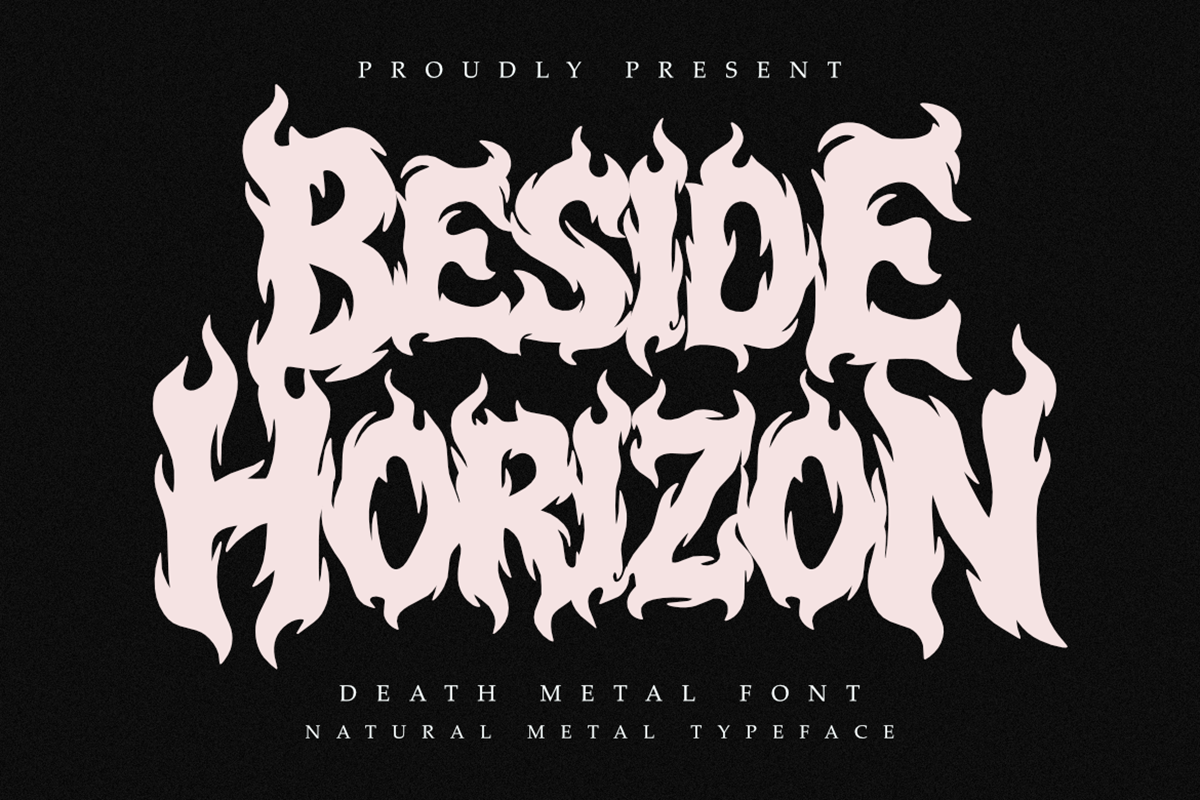
Beside Horizon – Death Metal Font is a brutal professional font designed for sophisticated branding and high-end extreme design projects.
Its fluid and aggressive letterforms provide a contemporary yet timeless feel, striking a perfect balance between organic fire-like structures and modern metal aesthetics. This font embodies the essence of modern minimalism while maintaining a sense of raw power and refinement, making it perfect for logos, corporate materials, and professional presentations.